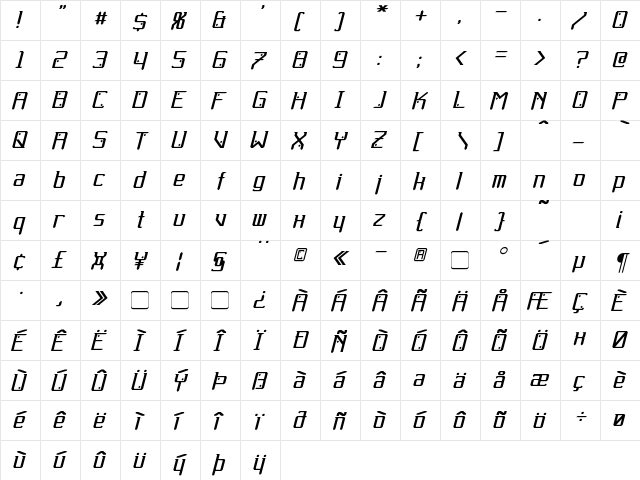
Gemcut Italic
| Foundry | Pixel Sagas |
| Designer | Neale Davidson |
Design Context for Gemcut Typeface
Gemcut is a composed and adaptable typeface that performs quietly and consistently across a wide range of design contexts. The dynamic lean of this cut emphasises speed and emphasis in any layout.
Pro Tip: Use Gemcut for emphasis, pull quotes, and subheadings where its slanted energy can add rhythm to the layout.